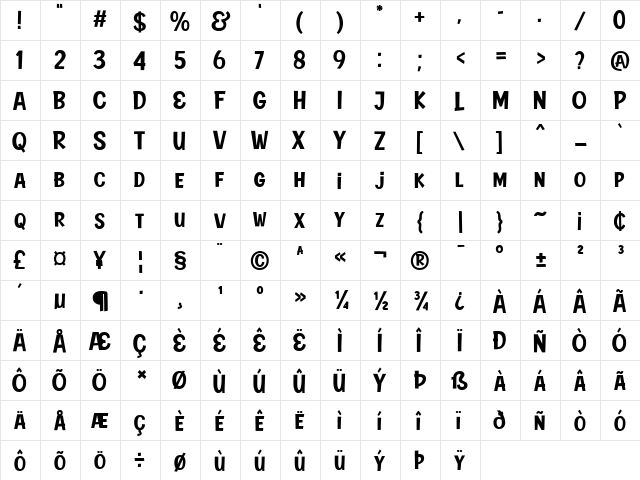
Down Hill Regular
Design Context for Down Hill Typeface
Down Hill is a composed and adaptable typeface that performs quietly and consistently across a wide range of design contexts.